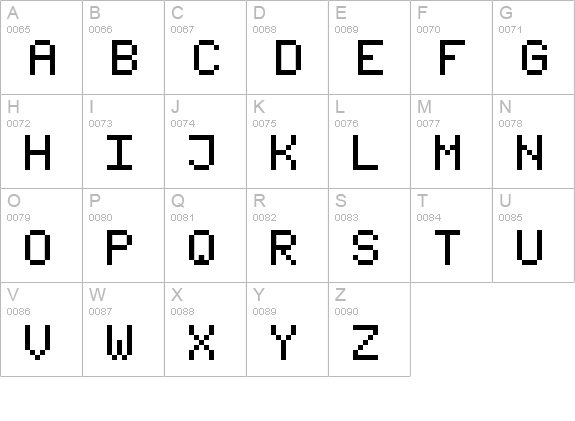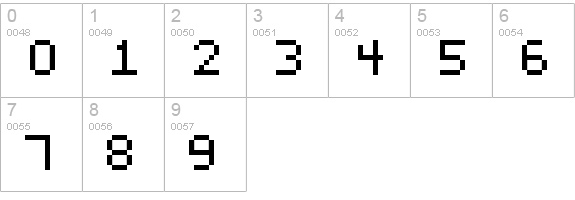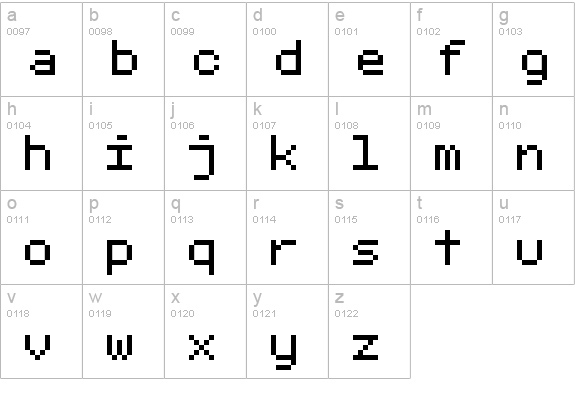
Fixed_v01 font is a sleek and modern typeface that is perfect for various design projects. With its clean lines and sharp edges, this font exudes a sense of professionalism and style. Ideal for both digital and print applications, fixed_v01 font will bring a contemporary touch to any project. What makes fixed_v01 font even better is that it is free to download at FontsMarket.com. This means you can easily access this high-quality font without any cost, making it a fantastic option for designers looking to enhance their projects without breaking the bank. Don't miss out on the opportunity to add fixed_v01 font to your font collection today!